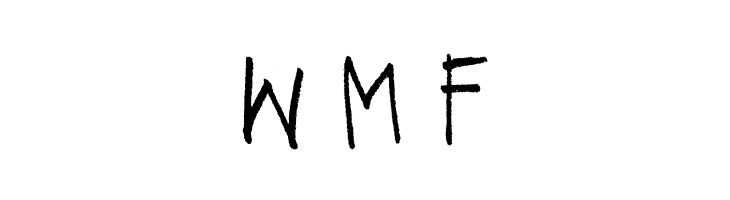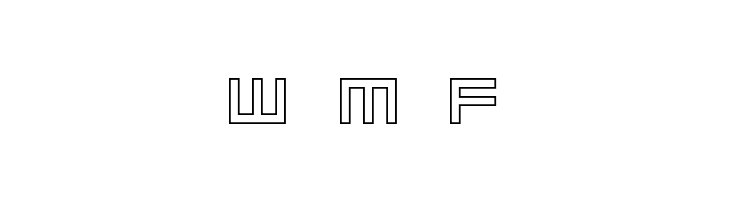
CA Misfit Font
A bold, distressed font with a grunge aesthetic and rugged texture.
BIN Bold Font
A bold, geometric font with a digital, pixelated style.
BIN Regular Font
A geometric, blocky font with a digital, pixelated style.
Fipps Font
Paper Johnny Eins Font
A bold, angular font with a geometric and industrial style.
Commo-Monospaced Font
Font by pheist.net - Stefanie Koerner
A monospaced, pixelated font with a retro digital style.
Phatone Font
A bold, blocky font with a modern, digital aesthetic.
PaperJohnnyEineinhalb-Regular Font
Font by pheist.net - Stefanie Koerner
A bold, angular font with geometric shapes and a monospaced appearance.
BIN Outline Font
A geometric, outline font with a futuristic and digital aesthetic.
Plakken Font
A bold, distressed font with a vintage, grunge aesthetic.
Fipps-Regular Font
Font by pheist.net - Stefanie Koerner
Paper Johnny Zwei Font
A bold, angular, and geometric font with a striking and dynamic appearance.
HeinzHeinrich Font
A bold, pixelated blackletter-style font with a vintage digital aesthetic.
Paper Johnny Drei Font
A bold, geometric font with sharp, angular characters.
PaperJohnnyEins-Regular Font
Font by pheist.net - Stefanie Koerner
A bold, playful font with an irregular, hand-crafted appearance.
Commo-Regular Font
Font by pheist.net - Stefanie Koerner
A bold, pixelated font with a geometric, retro digital style.
FastenYourSeatBelt Clean Font
Minimalist sans-serif font optimized for clarity and signage.
BINRegular-Regular Font
Font by pheist.net - Stefanie Koerner
A bold, geometric font with a digital, pixelated style.
BINBold-Regular Font
Font by pheist.net - Stefanie Koerner
A bold, geometric font with a modern, digital aesthetic.
FastenYourSeatBelt Textured Font